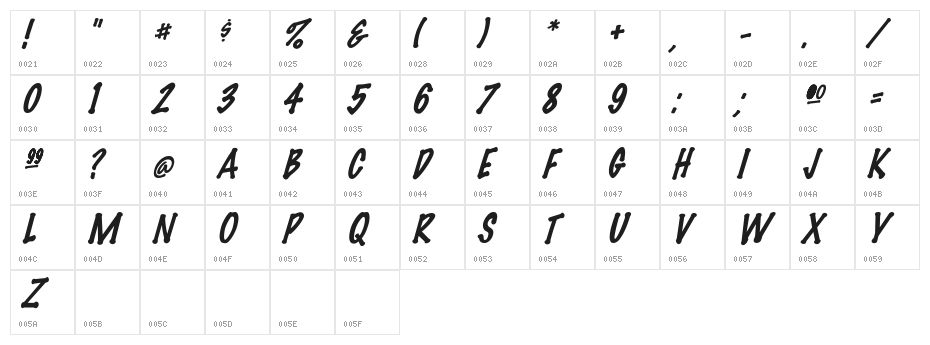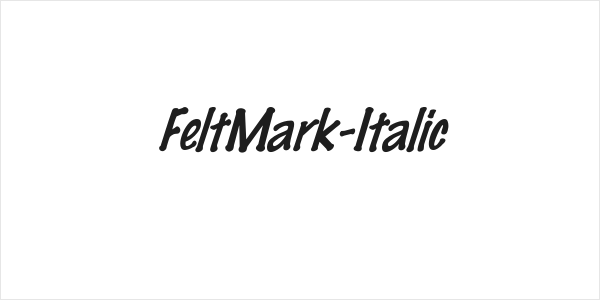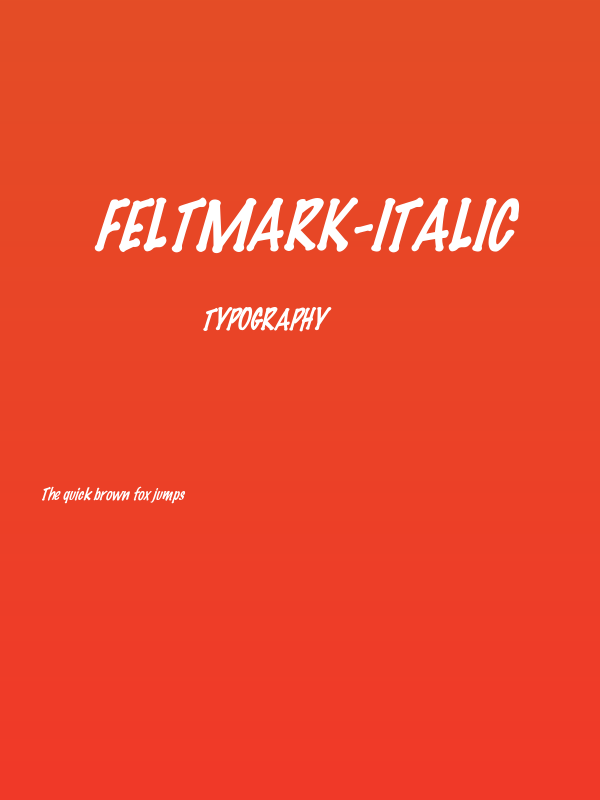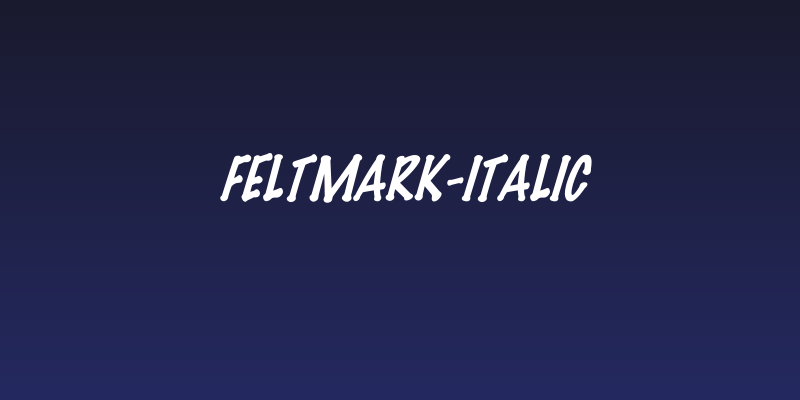
FeltMark-Italic Font
FeltMark-Italic Description
This font exudes a dynamic and energetic feel with its bold, slanted characters that mimic the fluidity of handwriting. The strokes are thick and consistent, giving it a strong presence on the page. Each letter is crafted with a slight forward tilt, enhancing its italic style and adding a sense of motion. The uppercase and lowercase letters maintain a cohesive look, while the numerals and special characters are designed to match the overall aesthetic. The font's boldness and slant make it ideal for grabbing attention, while its handwritten style adds a personal touch.